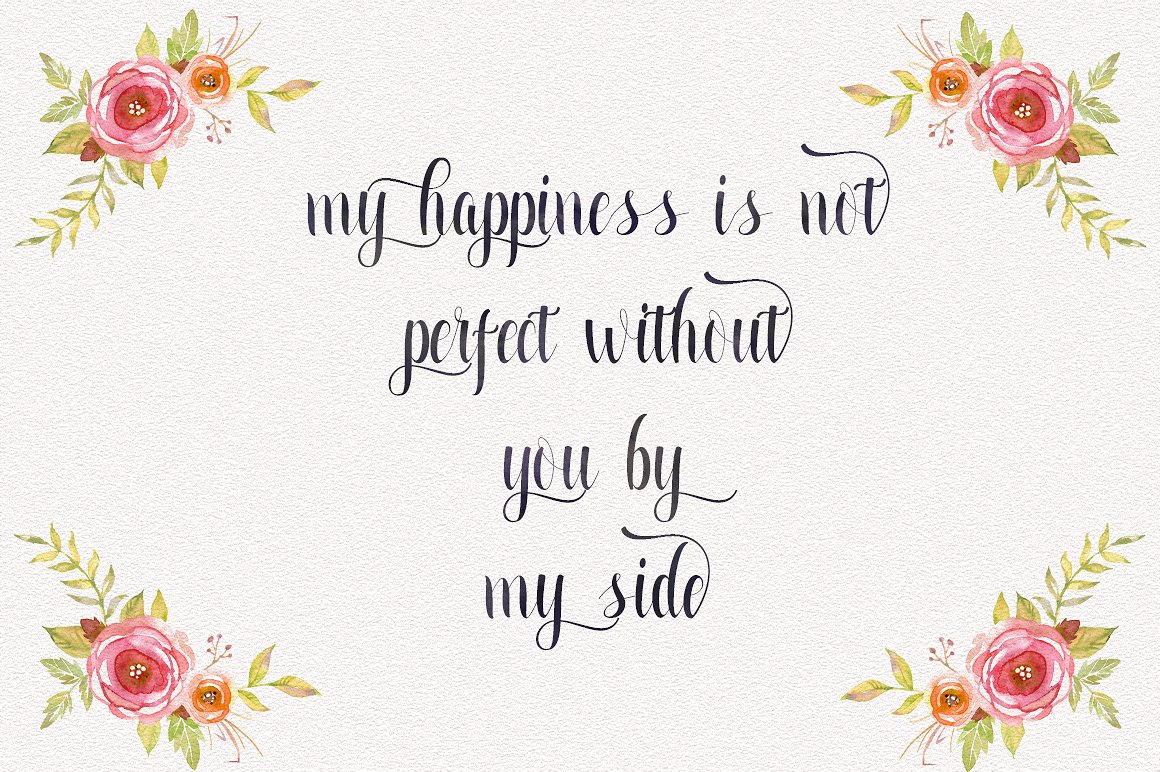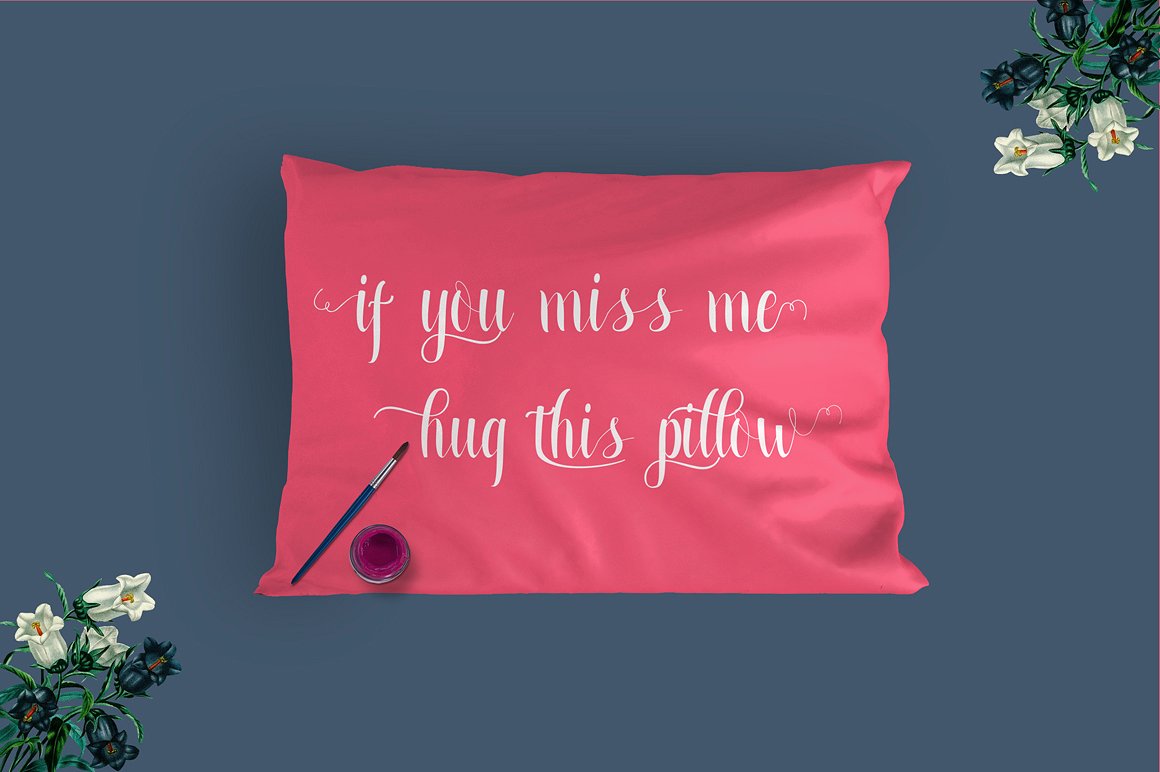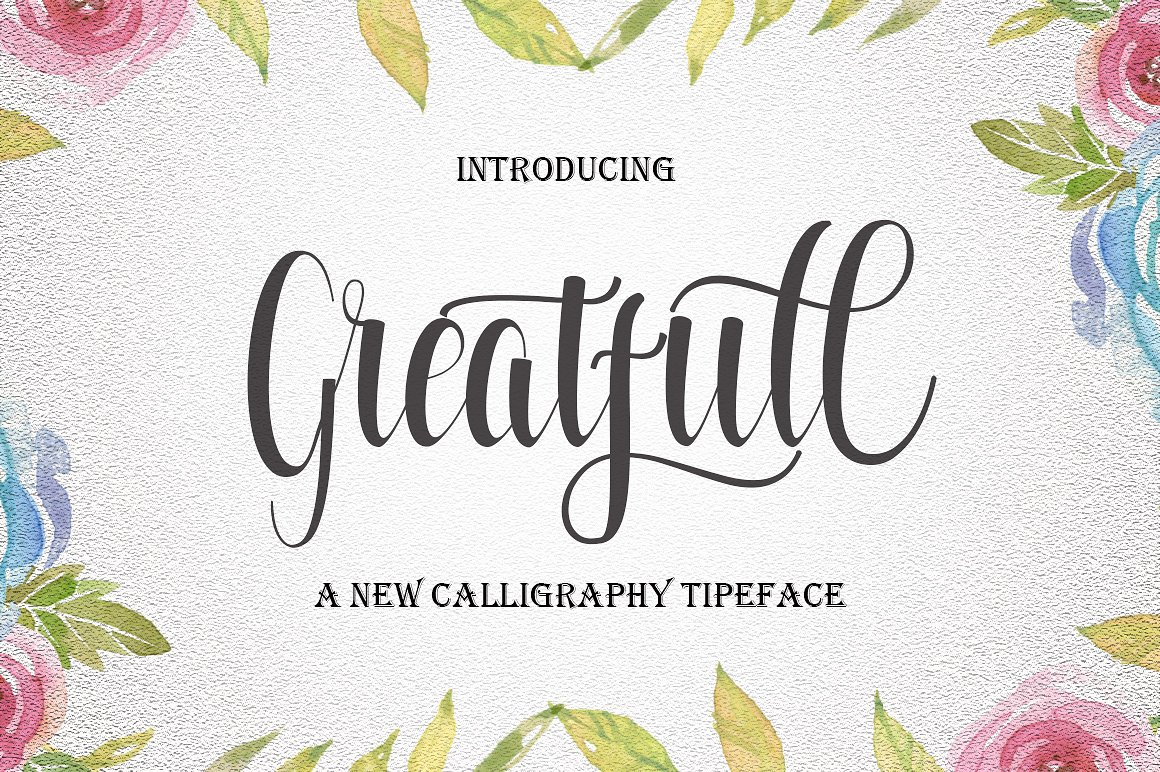
Greatfull Script Font
A new calligraphy font with awesome, endless possibilities. A perfect addition to the professional designers font. Introducing Greatfull Font. Greatfull Modern Calligraphy. This font was designed by handwriting, and it has a modern and unique forms of calligraphy, the writing style is very natural. Can be used for various purposes.such as headings, logos, wedding invitation, t-shirt, letterhead, signage, lable, news, posters, badges etc.